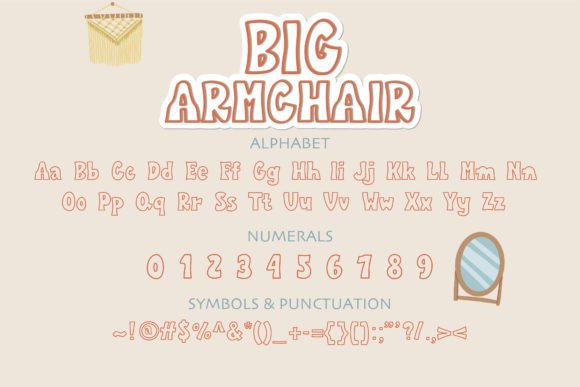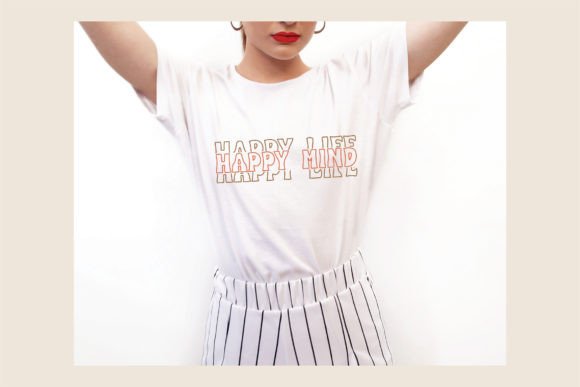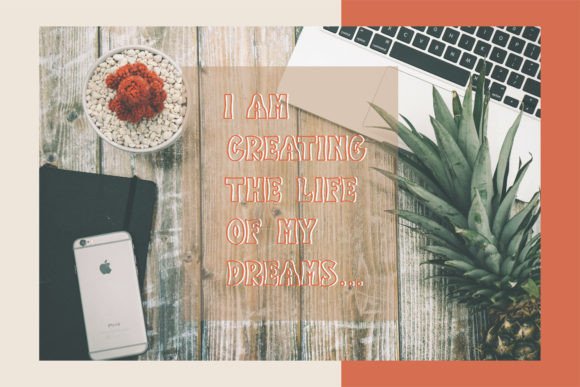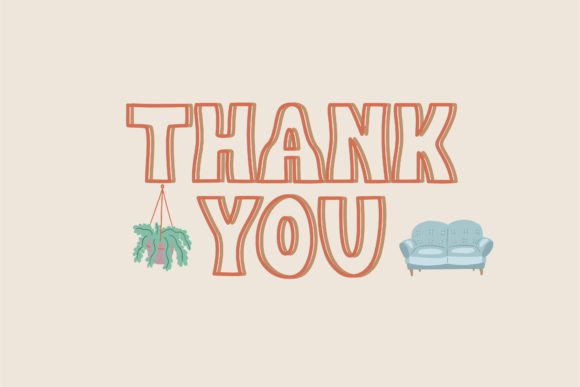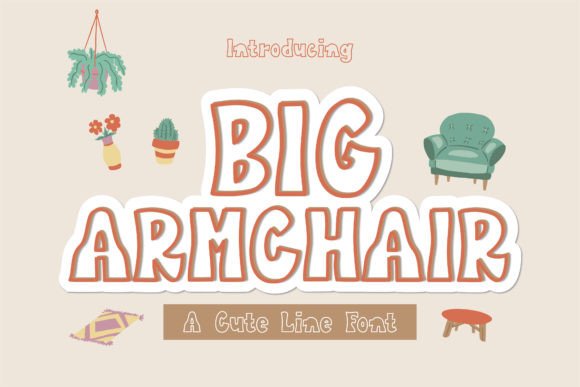
Introducing Big Armchair Font: The Ultimate Display Font for Creative Designs
Are you tired of using the same old fonts for your designs? Look no further! Big Armchair Font is here to revolutionize your creative projects with its cute and playful style. This display font is perfect for designers and crafters who want to add a touch of uniqueness to their work. In this article, we’ll dive into the world of Big Armchair Font and explore its endless possibilities.
What is Big Armchair Font?
Big Armchair Font is a modern display font that boasts a natural and unique style. Its cute and playful vibe makes it incredibly fitting for a wide range of designs, from posters and flyers to logos and branding materials. This font is perfect for creative projects that require a touch of personality and whimsy.
Key Features of Big Armchair Font
- Cute and Playful Style: Big Armchair Font has a distinctive style that’s both fun and engaging. Its playful vibe is sure to capture the attention of your audience and leave a lasting impression.
- Natural and Unique: This font has a natural, hand-crafted feel that sets it apart from other display fonts. Its unique style makes it perfect for designers who want to add a touch of personality to their work.
- Endless Variations: Big Armchair Font offers endless possibilities for creative expression. Experiment with different font sizes, colors, and styles to create unique and eye-catching designs.
Big Armchair Font is a versatile font that’s perfect for a wide range of creative projects. Here are some ideas to get you started:
- Posters and Flyers: Use Big Armchair Font to create eye-catching posters and flyers that grab attention.
- Logos and Branding: This font is perfect for creating unique logos and branding materials that reflect your brand’s personality.
- Social Media Graphics: Add a touch of personality to your social media graphics with Big Armchair Font.
- Crafting Projects: Use this font to add a personal touch to your crafting projects, such as handmade cards and gift tags.
Tips and Tricks for Using Big Armchair Font
Here are some tips and tricks to help you get the most out of Big Armchair Font:
- Experiment with Font Sizes: Play around with different font sizes to create visual interest and hierarchy in your designs.
- Mix and Match with Other Fonts: Combine Big Armchair Font with other fonts to create unique and interesting typography.
- Use Colors Wisely: Choose colors that complement the playful and cute style of Big Armchair Font.
- Add Texture and Patterns: Add texture and patterns to your designs to give them a more organic and handmade feel.